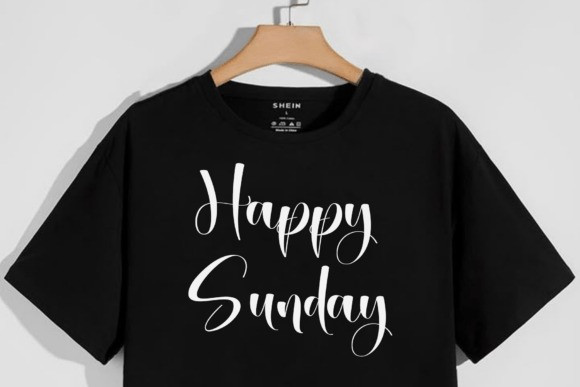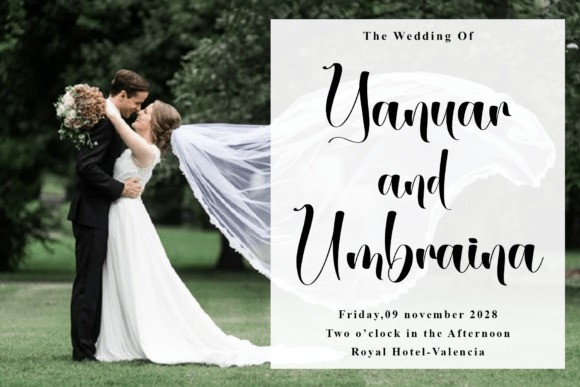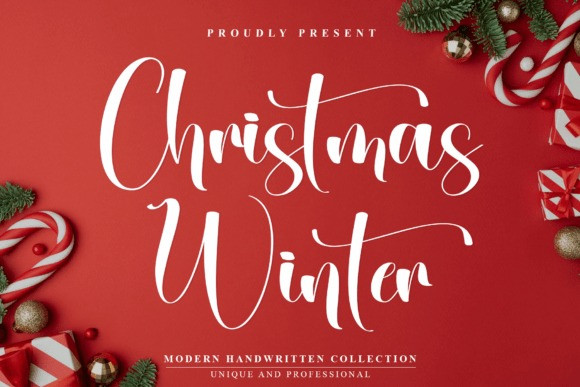
Christmas Winter Script Font
Christmas Winter Script Font is a modern handwritten script that radiates charm and sophistication through its flowing curves and elegant letterforms. With tall, expressive ascenders, generous loops, and smooth, fluid connections, it captures the essence of celebratory handwriting with a refined twist. The high contrast between thick downstrokes and thin upstrokes enhances its visual rhythm, making it both decorative and legible. Perfectly suited for greeting cards, invitations, logos, packaging, and social media graphics, Birthday adds a joyful, personal touch to any project. It’s polished style balances playfulness and professionalism—ideal for both festive and upscale design contexts.